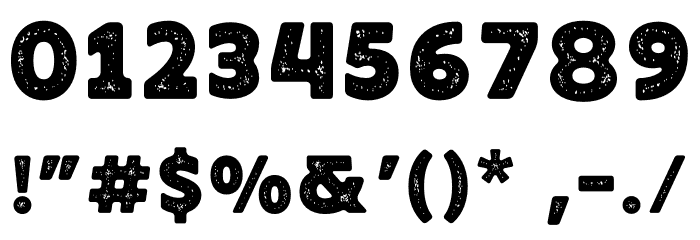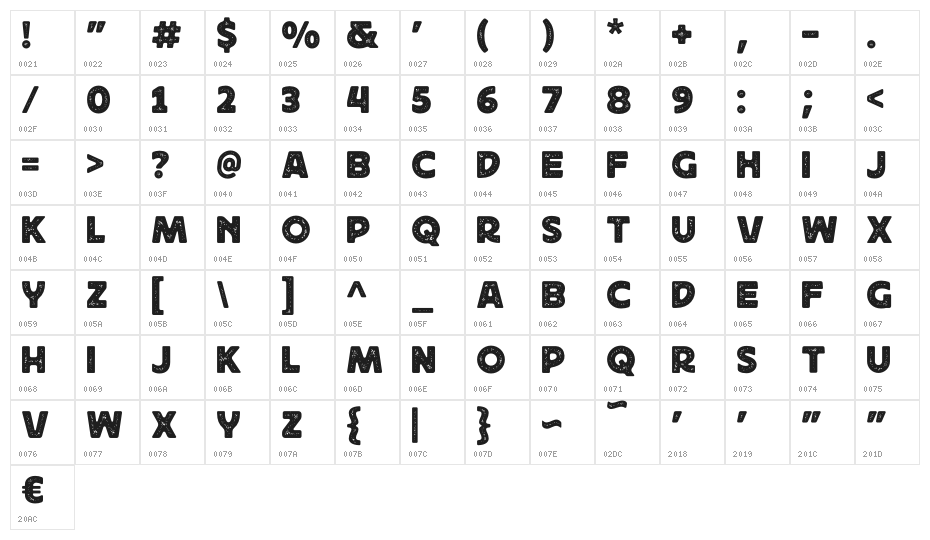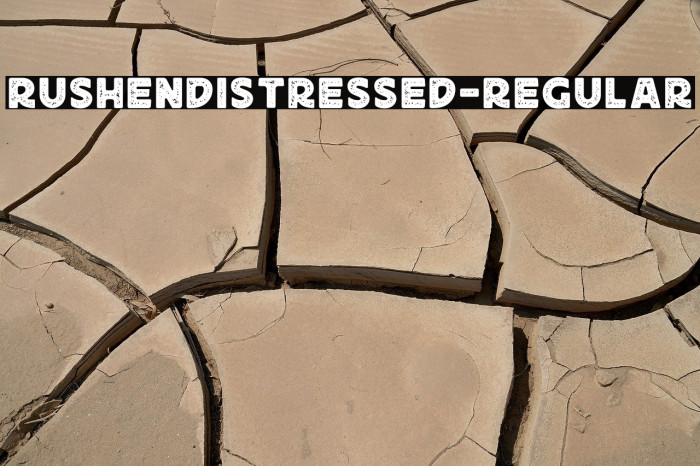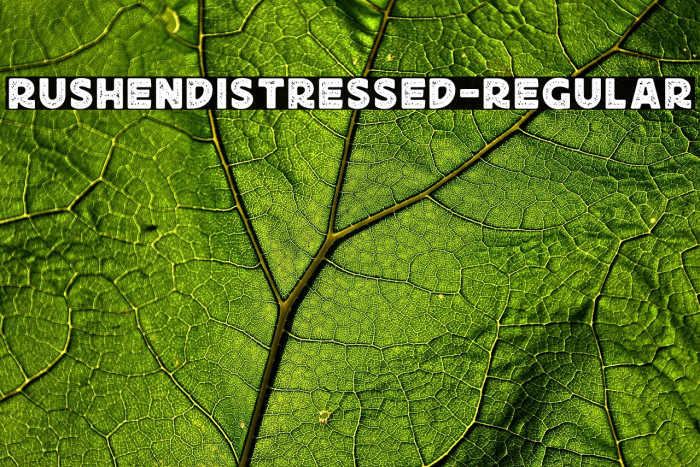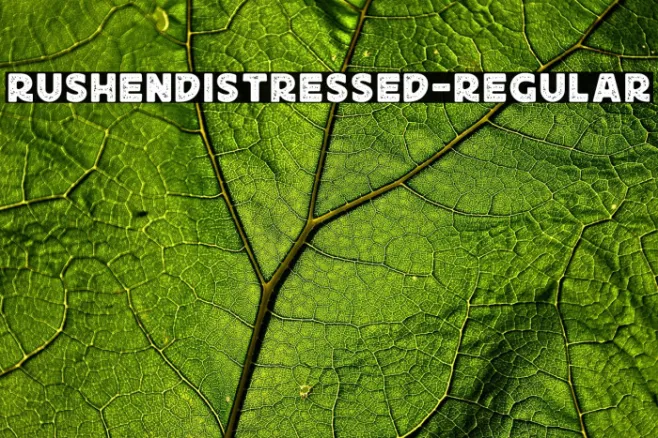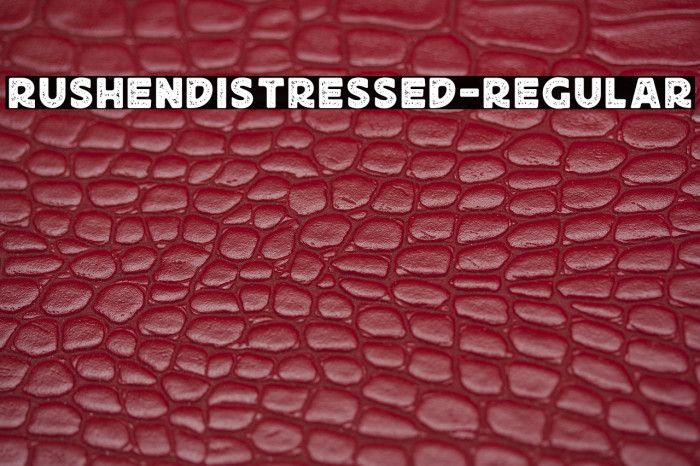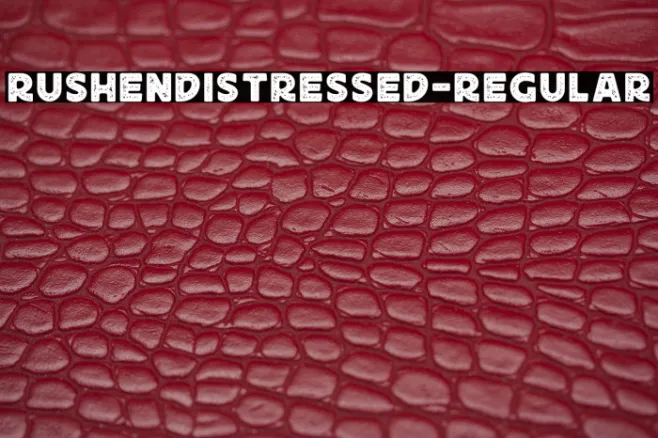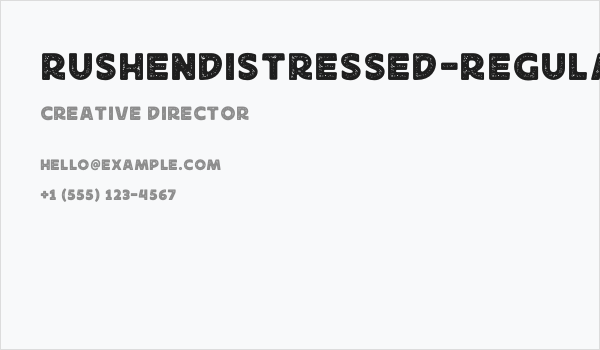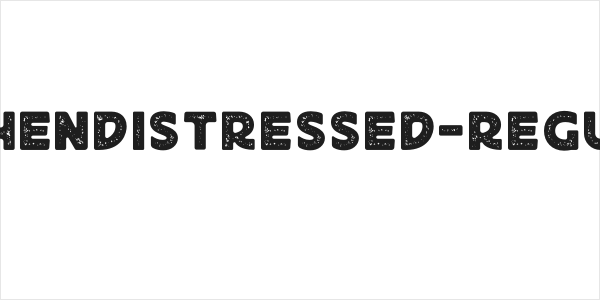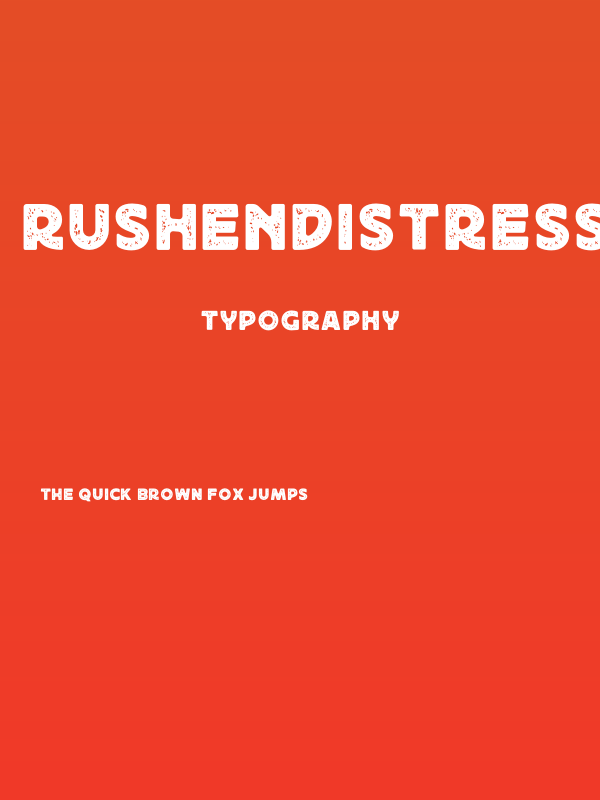
RushenDistressed-Regular Font
RushenDistressed-Regular Description
This font features a bold, distressed style with a textured appearance that gives it a rugged, vintage feel. The characters are thick and blocky, with a consistent width that maintains readability despite the distressed effect. The texture within each letter creates a sense of depth and character, making it ideal for designs that require a touch of nostalgia or a handcrafted look. The uppercase and lowercase letters are well-defined, and the numerals and special characters maintain the same distressed aesthetic, ensuring a cohesive look across all text elements.
| Proposed Projects | Ideal for vintage-themed posters, logos, apparel design, and branding projects that require a rugged, handcrafted look. |